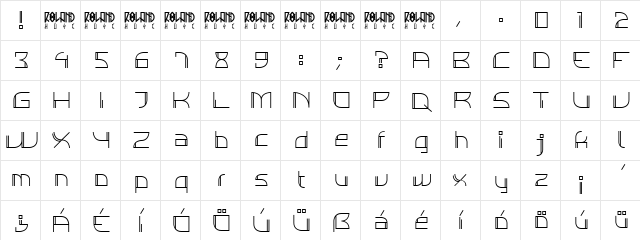
Individigital Thin Regular
Design Context for Individigital Thin Typeface
Individigital Thin channels digital-age aesthetics through its sharp, structured letterforms — ideal for brands that want to signal innovation. The delicate stroke weight brings airiness and refinement to layouts.
Pro Tip: Use Individigital Thin in combination with a neutral sans for body text. Let it define the brand voice in headlines while keeping reading comfortable elsewhere.